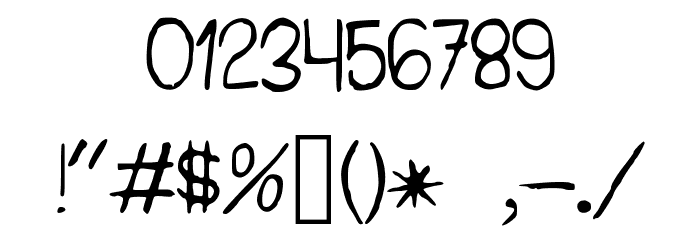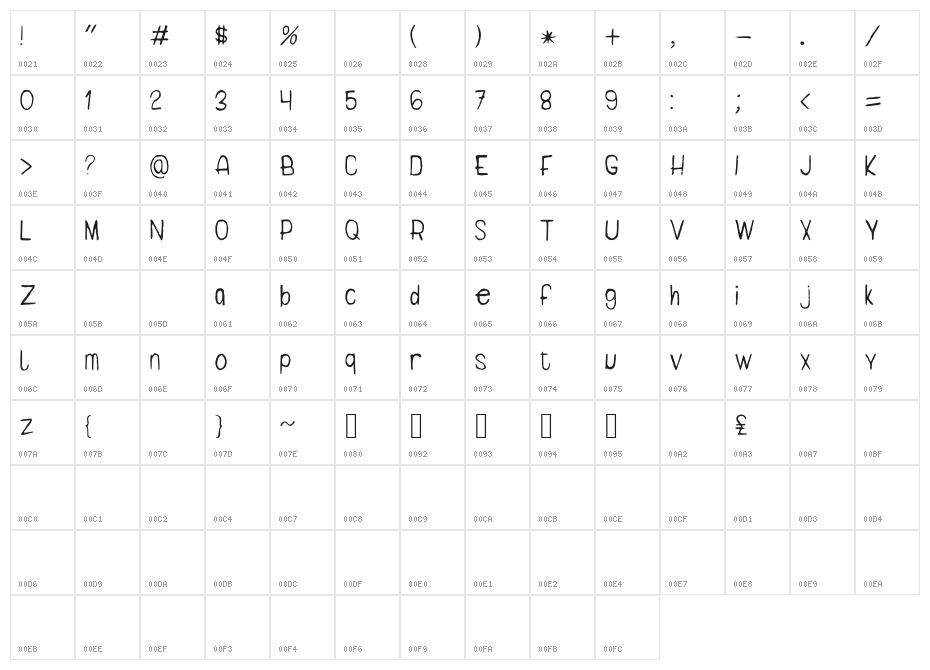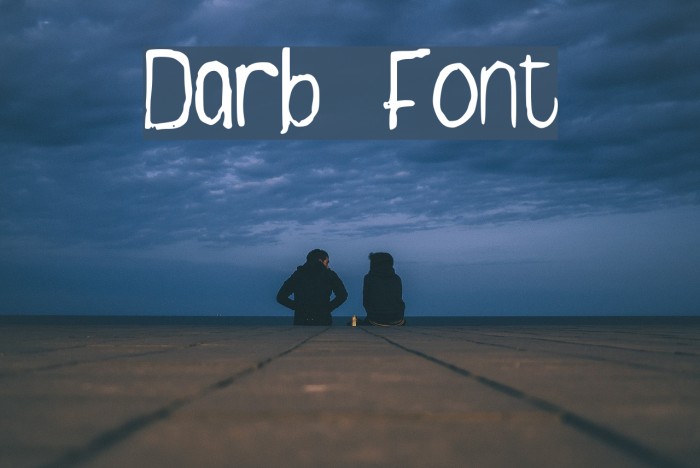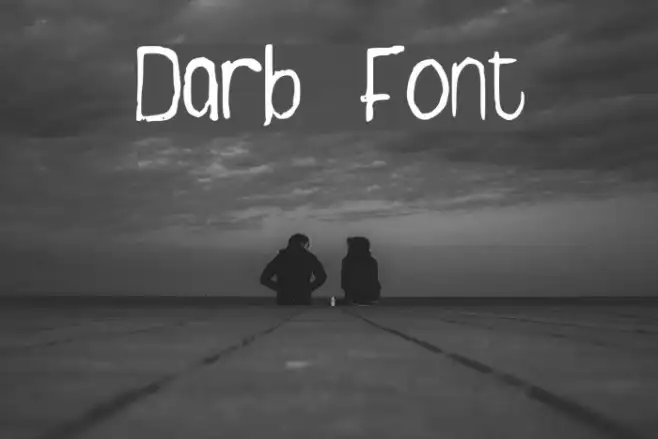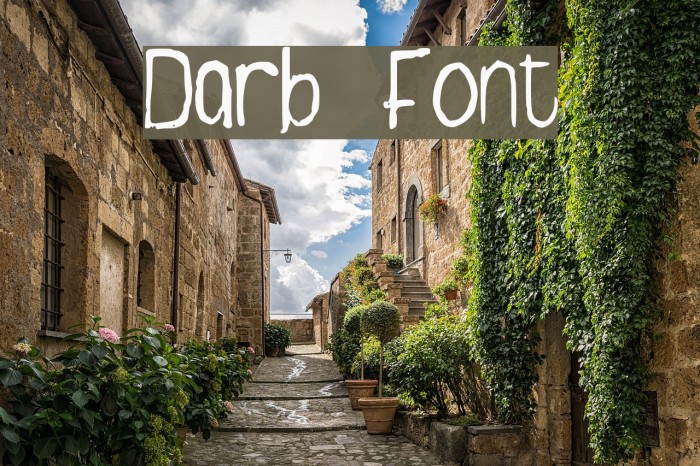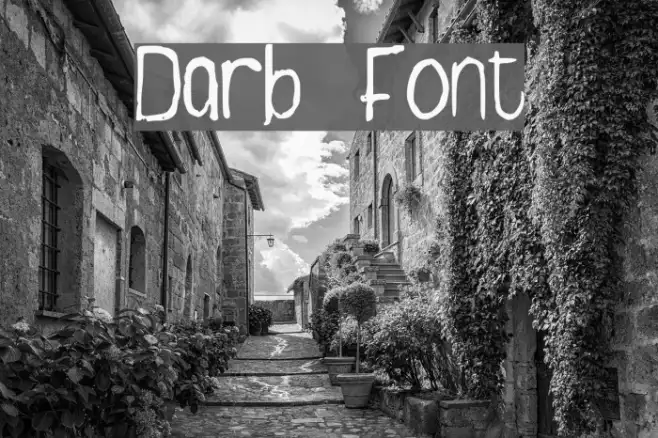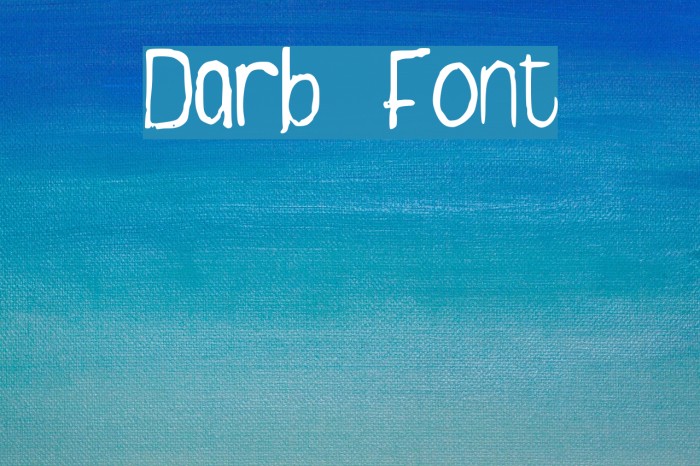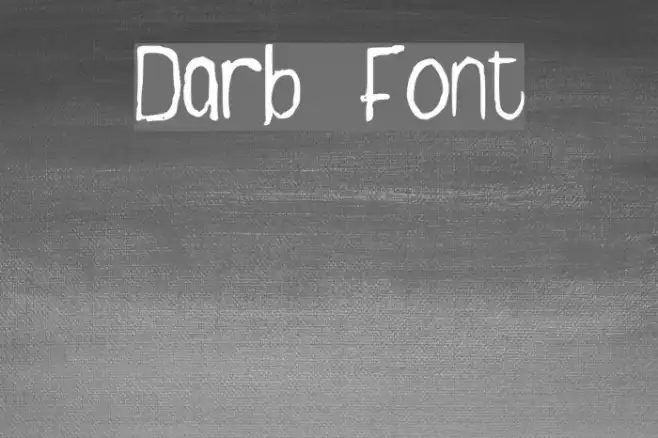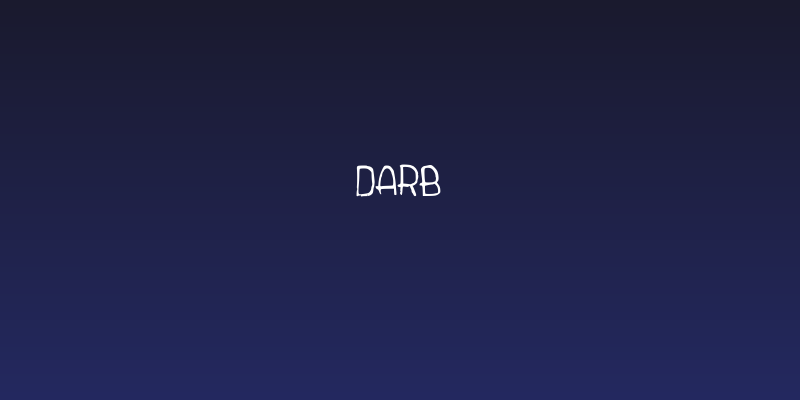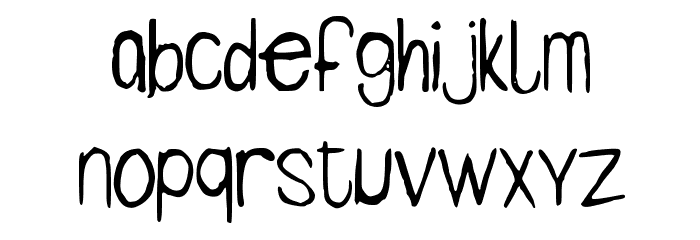
Darb Font
Darb Description
This font features a playful and slightly irregular style, characterized by its hand-drawn appearance. The letters have a casual, whimsical feel, with uneven strokes and varying thickness that give it a unique, artistic touch. The uppercase and lowercase letters maintain a consistent style, with rounded edges and a slightly tilted orientation, adding to its informal charm. The numerals and special characters follow the same quirky design, making it suitable for creative projects. Its distinctive look makes it stand out, perfect for adding a personal touch to any design.